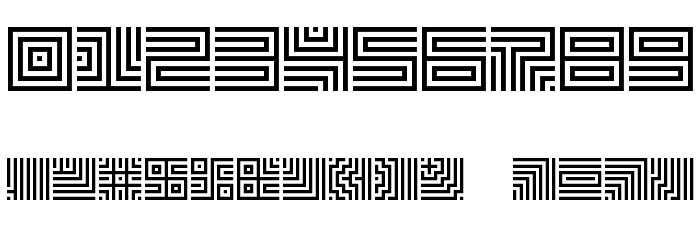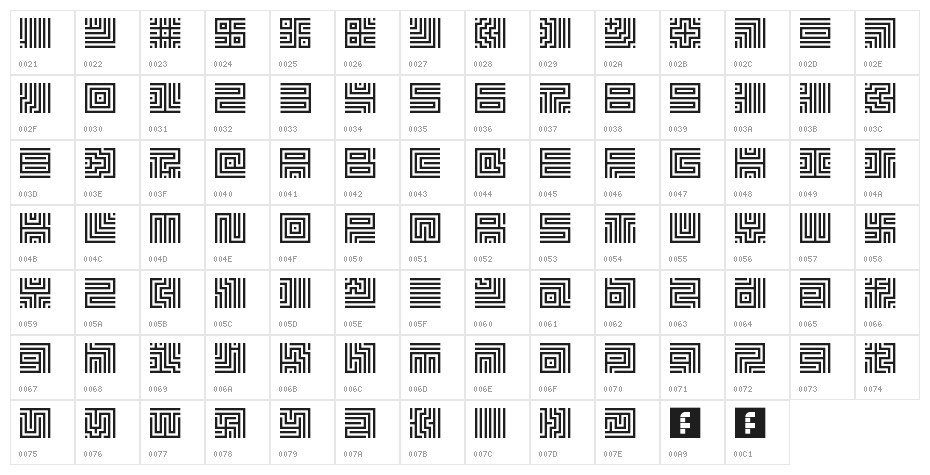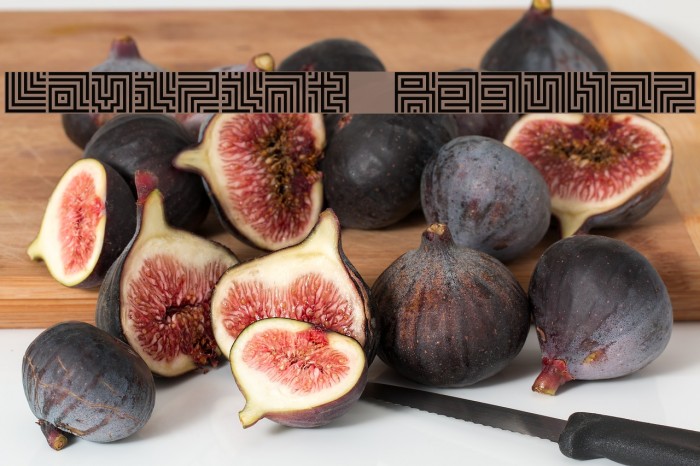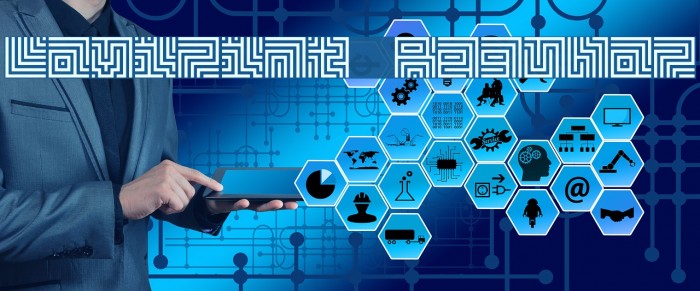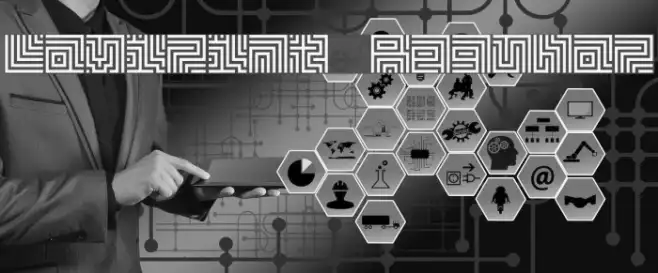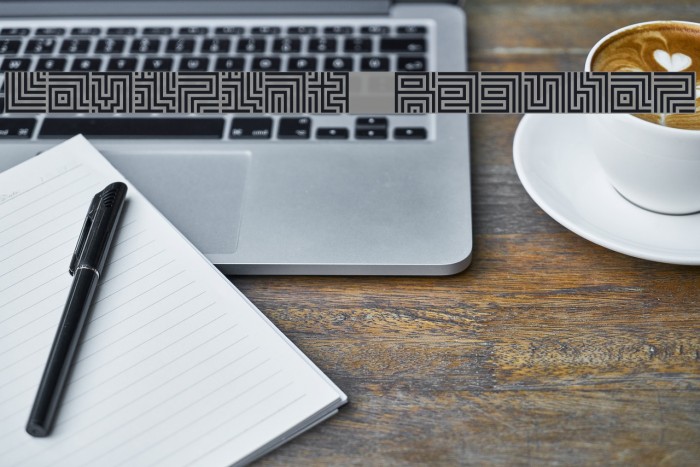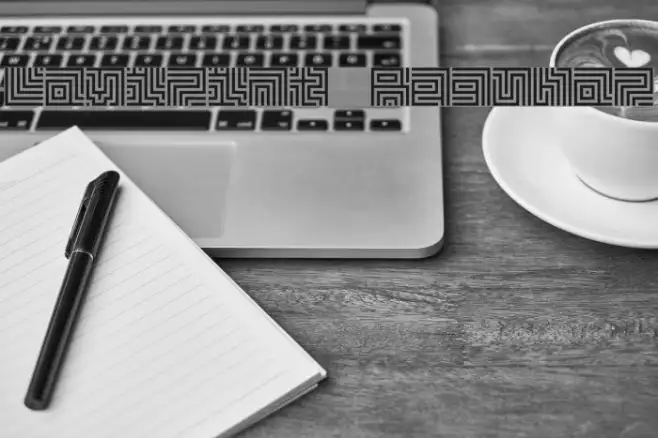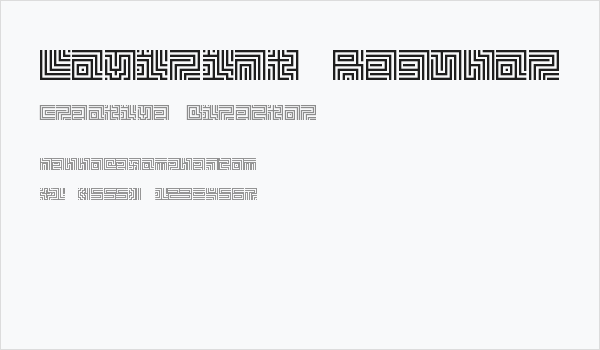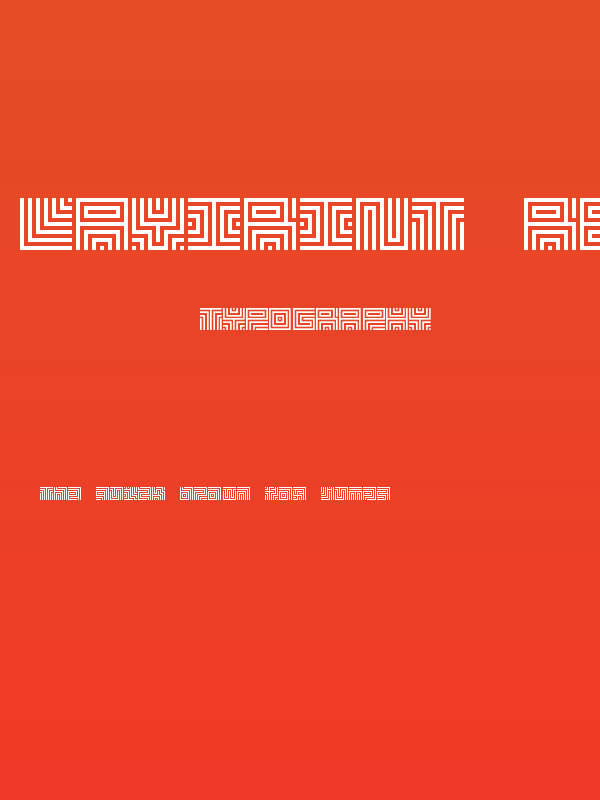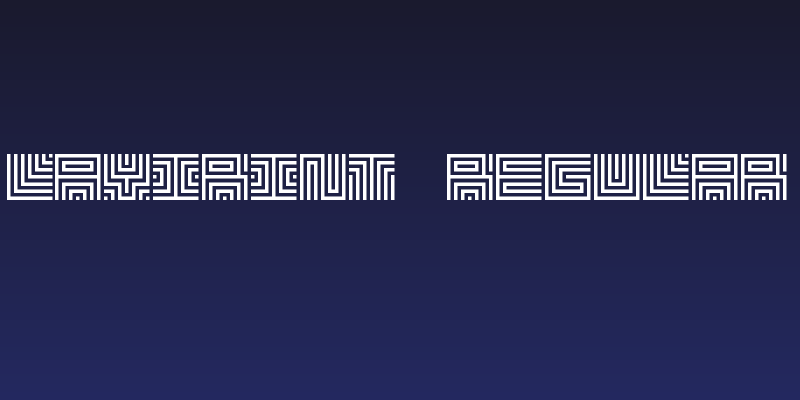
Lavirint Regular Font
Lavirint Regular Description
This font features a highly decorative and intricate design, reminiscent of a labyrinth or maze. Each character is composed of a series of bold, interconnected lines that create a complex geometric pattern. The style is unique and eye-catching, making it ideal for projects that require a strong visual impact. The characters are uniform in width, contributing to a cohesive and structured appearance. This font is best suited for creative and artistic applications where readability is secondary to visual appeal.
| Proposed Projects | Ideal for posters, album covers, video game graphics, and artistic branding projects. |